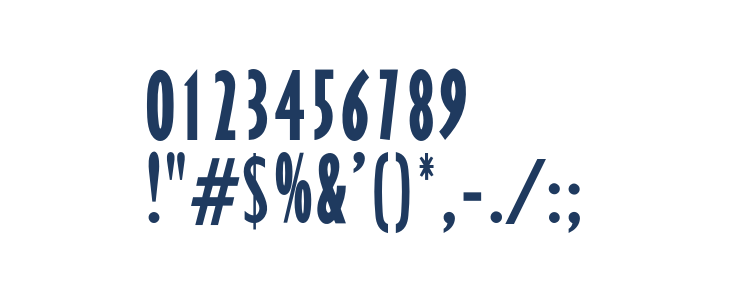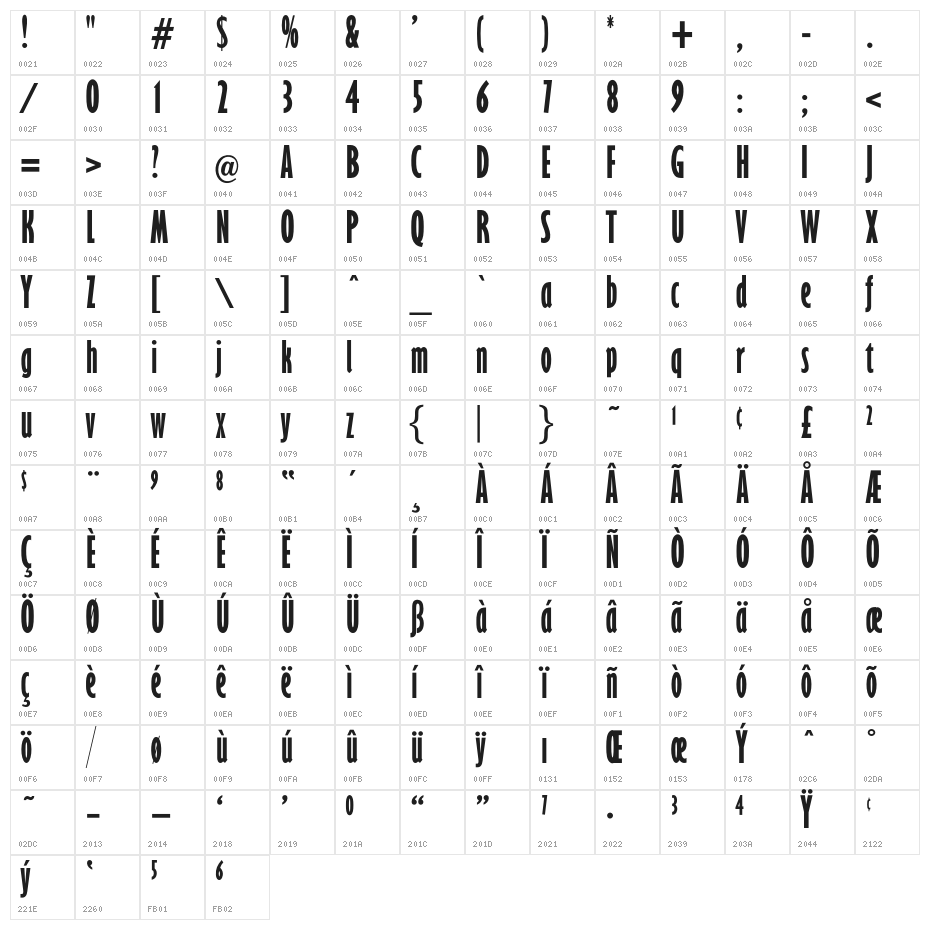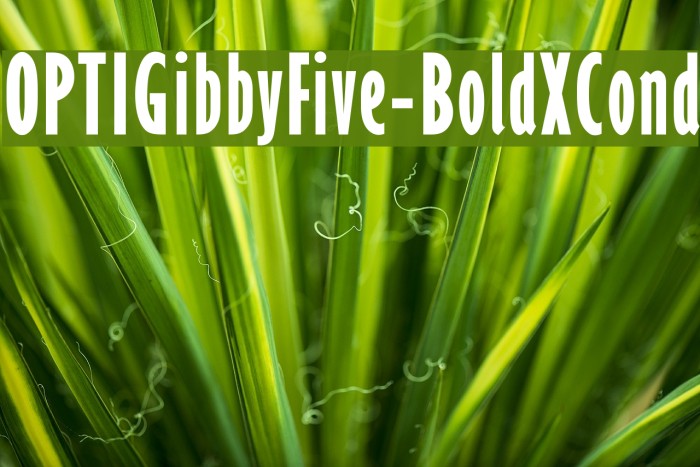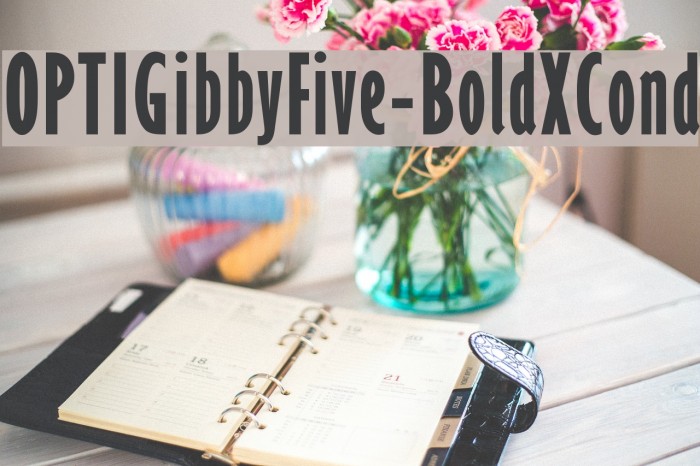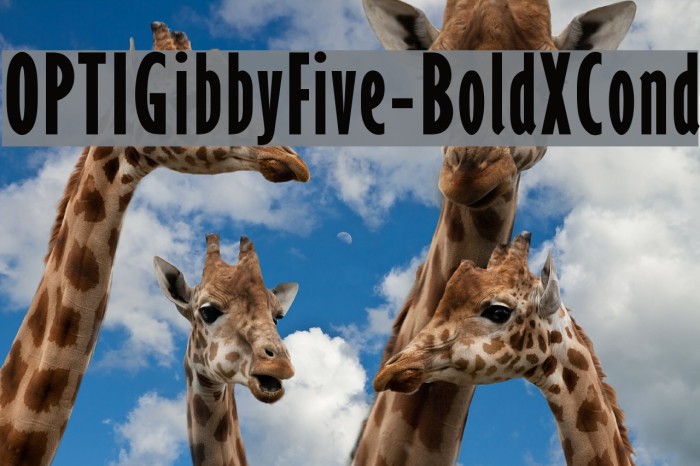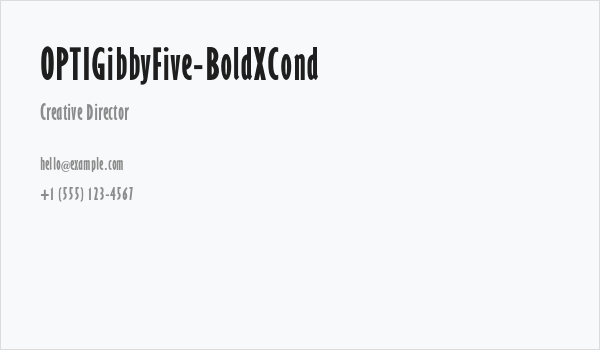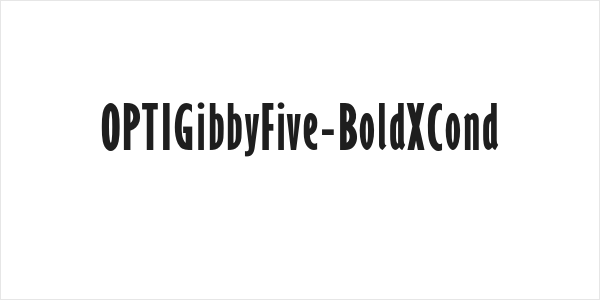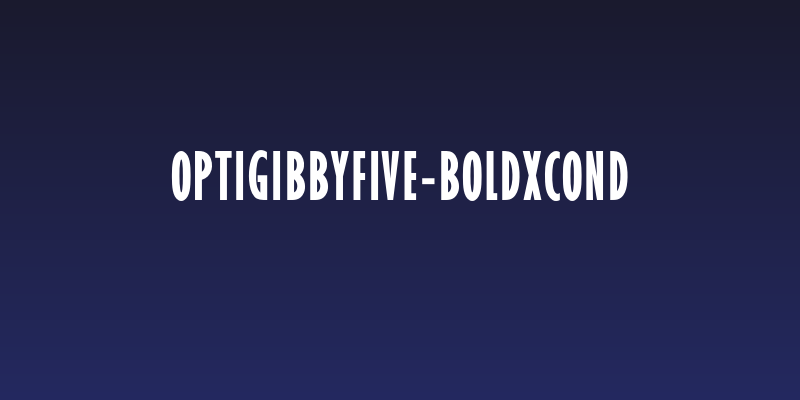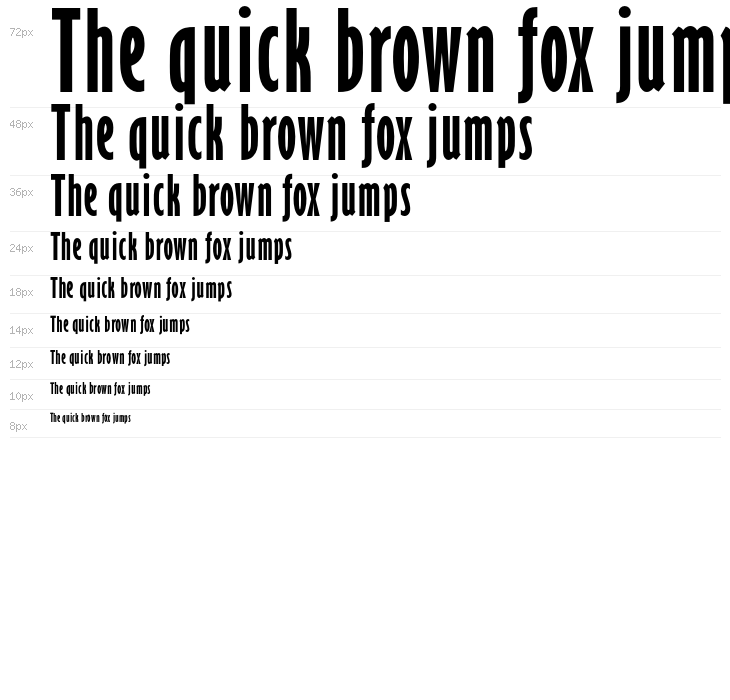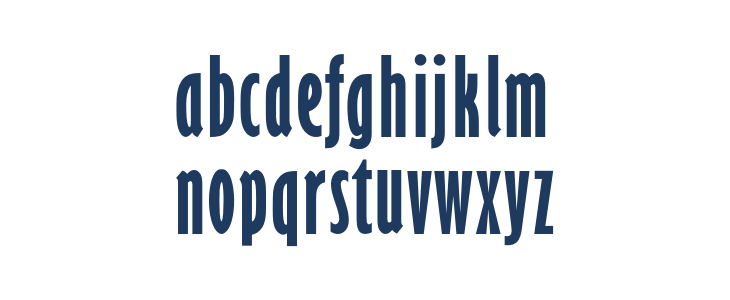
OPTIGibbyFive-BoldXCond Font
OPTIGibbyFive-BoldXCond Description
This font features a bold and condensed style, characterized by tall, narrow letters with a strong vertical emphasis. The uppercase and lowercase letters maintain a consistent width, creating a uniform appearance. The numbers and special characters follow the same condensed style, ensuring a cohesive look across all text elements. The bold weight of the font enhances its visibility and impact, making it suitable for attention-grabbing designs. The overall aesthetic is modern and assertive, with clean lines and minimal decorative elements.
| Proposed Projects | Ideal for posters, headlines, branding, and any design requiring a strong visual impact. |